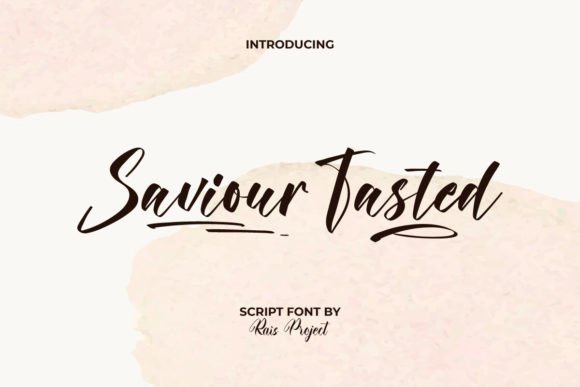
Introducing Saviour Tasted, a script font that will captivate your senses and make your designs dance with elegance. This extraordinary creation by RaisProject is a visual masterpiece, a harmonious blend of thick and thin strokes that intertwine seamlessly, creating an effortless readability.
Saviour Tasted is not just a font; it's an experience. Its graceful curves and timeless appeal evoke a sense of sophistication, making it the perfect choice for expressing your creativity. Whether you're a seasoned designer or a passionate hobbyist, this font will elevate your projects to new heights.
Get ready to embark on a creative journey like no other as you explore the endless possibilities that Saviour Tasted offers. From enchanting wedding invitations to alluring branding designs, this font will transform your words into captivating works of art. Imagine your designs adorned with the charm of Saviour Tasted, exuding an aura of elegance that leaves a lasting impression.
Here's a glimpse into the enchanting world of Saviour Tasted:
- Beauty and Fashion: Allow this font to enhance your marketing materials, creating a visual symphony that resonates with your target audience. Its enchanting allure is a perfect match for the beauty and fashion industries, adding a touch of charm to your brochures, posters, and social media posts.
- Hospitality and Events: Bring a touch of sophistication to your hospitality and event-related designs. Saviour Tasted will elevate your invitations, menus, and promotional materials, creating an ambiance of warmth and elegance.
- Publishing and Creative Industries: Unleash your creativity and let Saviour Tasted become your muse. Craft captivating book covers, enchanting illustrations, and stunning posters that will leave readers breathless.
- Personal Projects: Add a personal touch to your creative projects, whether it's scrapbooking, card making, or designing unique home décor. Saviour Tasted will infuse your creations with a hint of magic, making them truly special.
Embrace the allure of Saviour Tasted today and witness the transformation it brings to your creative endeavors. Its timeless beauty and versatility make it a must-have for any font enthusiast. Elevate your designs, captivate your audience, and let your creativity soar to new heights with Saviour Tasted.